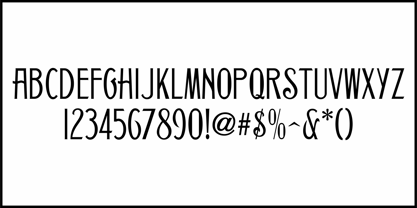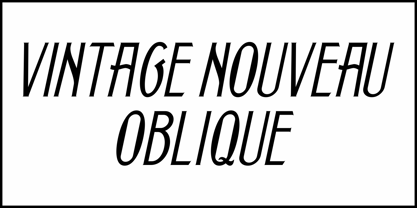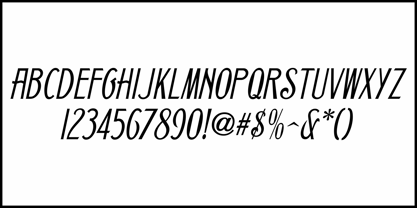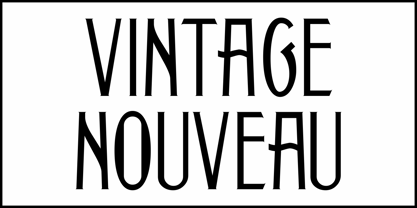
Vintage Nouveau JNL
by Jeff Levine
Here's an interesting example of Art Nouveau metal type from the late 1800s originally released by Barnhart Brothers & Spindler which was modeled from various print ads found in vintage magazines.
This digital type revival is called Vintage Nouveau JNL and is available in both regular and oblique versions.